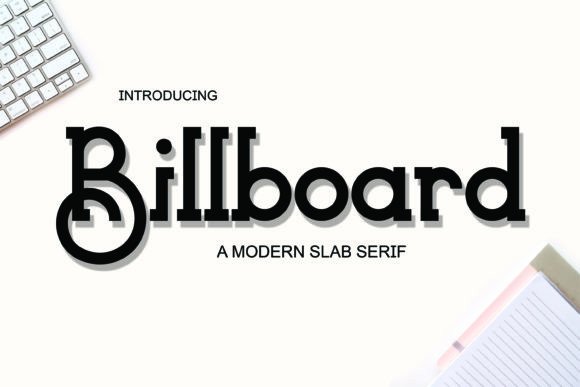
The Quest for the Perfect Font: Discovering Billboard
I still remember the design project that led me to Billboard, a modern, elegant, and classy slab serif typeface. I was working on a branding project for a luxury fashion brand, and I needed a font that would convey sophistication and style. After hours of scouring font libraries and trying out different options, I stumbled upon Billboard. Its clean lines and smooth curves instantly caught my attention, and I knew I had found the perfect fit.
A Honest Review of Billboard
So, what makes Billboard so special? Let’s dive into the good stuff and some potential quirks.
What I Love About Billboard
• ✨ Clean and elegant design: Billboard’s slab serif design gives it a sophisticated and modern look that’s perfect for headings, logos, and branding.
• ✅ Versatile: This font is suitable for a wide range of projects, from magazines and product packaging to invitations and more.
• 💡 OpenType features: Billboard comes with a range of OpenType features, including stylistic alternates and glyphs, which allow for creative experimentation and customization.
While Billboard is an excellent font, there are a few things to keep in mind:
• 🤔 Limited use for body text: Due to its elegant and condensed design, Billboard may not be the best choice for body text or long-form content.
• ⚠️ Requires careful kerning: As with any font, careful attention to kerning is necessary to ensure that Billboard looks its best, particularly at larger sizes.
The Designer Inspiration Behind Billboard
While the true story behind Billboard’s creation is unknown, it’s easy to imagine that the designer was inspired by the classic typography of luxury brands and the need for modern, elegant fonts in the design industry. Perhaps the designer was a typography enthusiast who sought to create a font that would bring a touch of sophistication to any project.
Q: What is Billboard font best used for?
A: Billboard is best used for headings, logos, branding, magazines, product packaging, and invitations.
Q: Does Billboard come with OpenType features?
A: Yes, Billboard comes with a range of OpenType features, including stylistic alternates and glyphs.